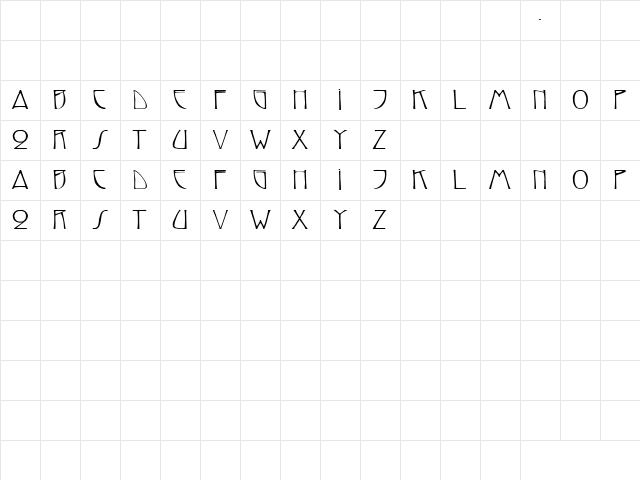
Roadhouse 6 Regular
Design Context for Roadhouse 6
Roadhouse 6 is a composed and adaptable typeface that performs quietly and consistently across a wide range of design contexts.
Pro Tip: Use Roadhouse 6 in both headline and body roles to test its range before committing to a single application.